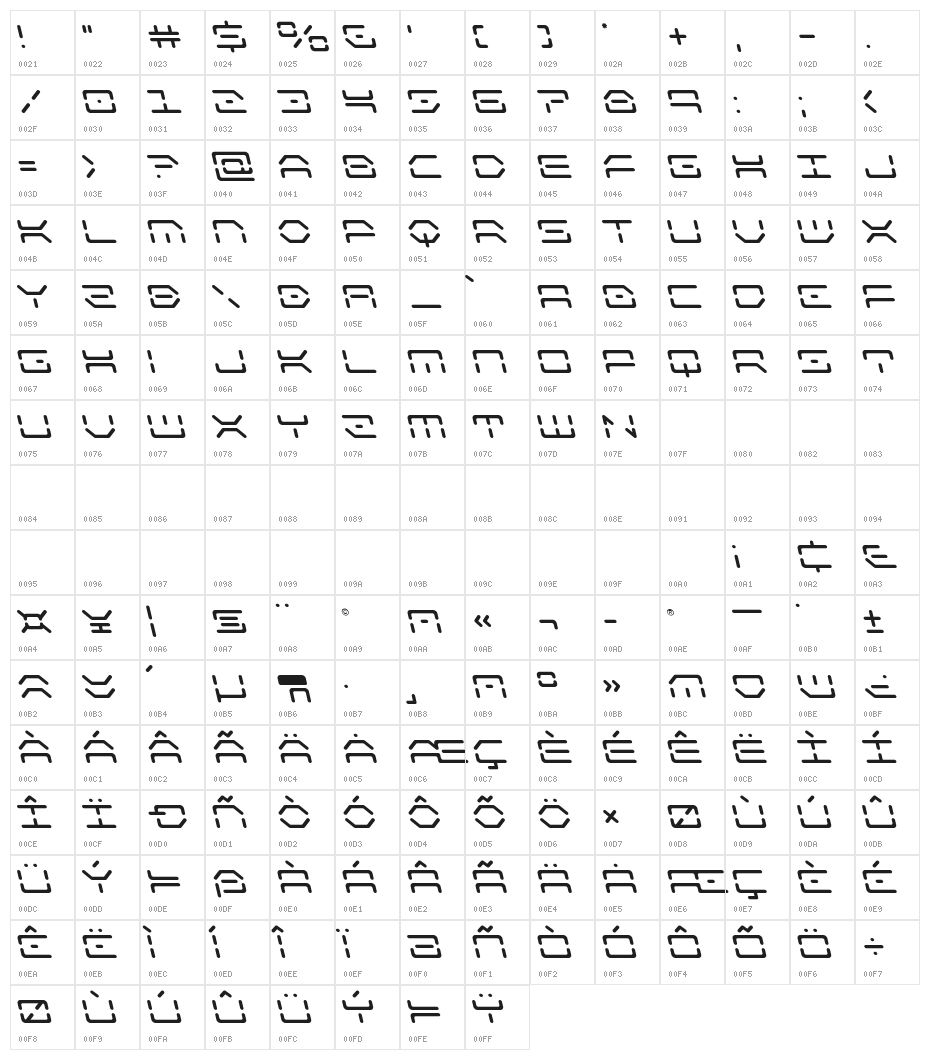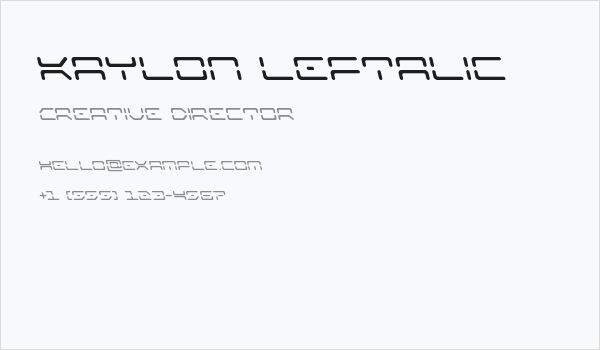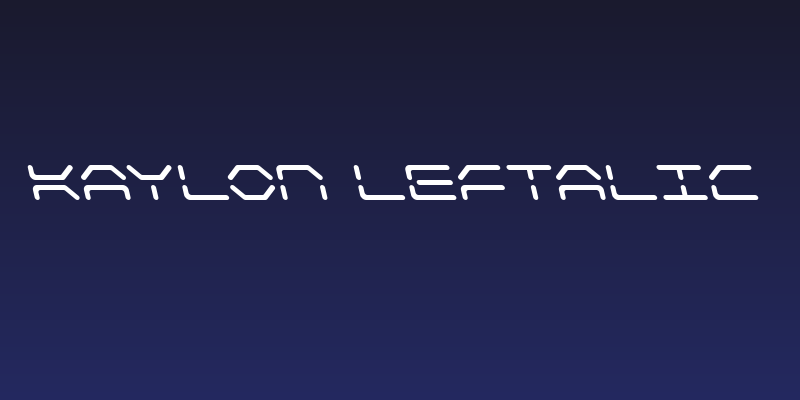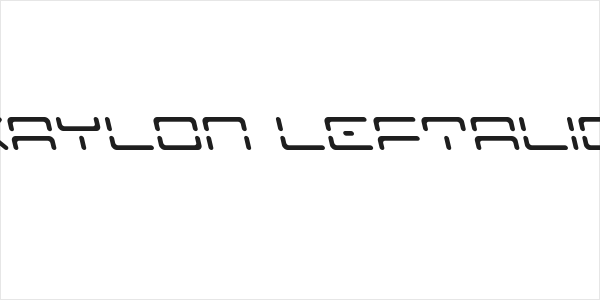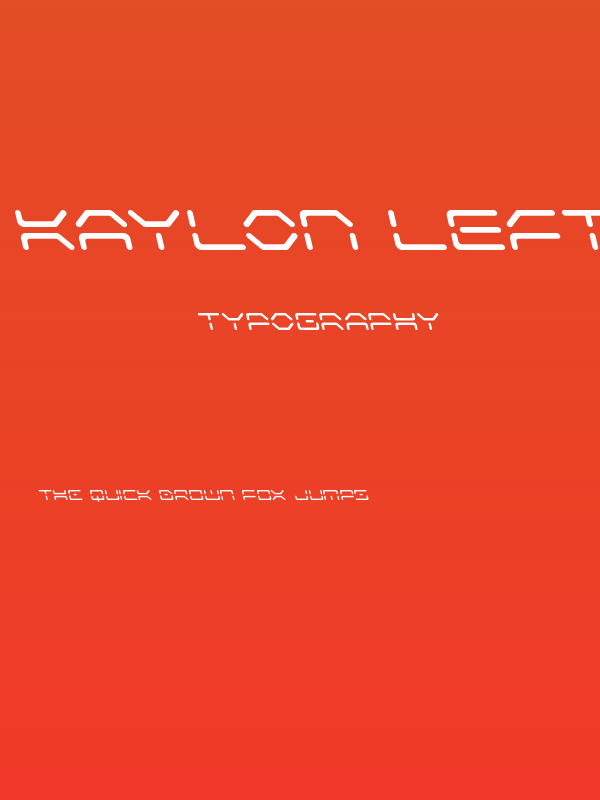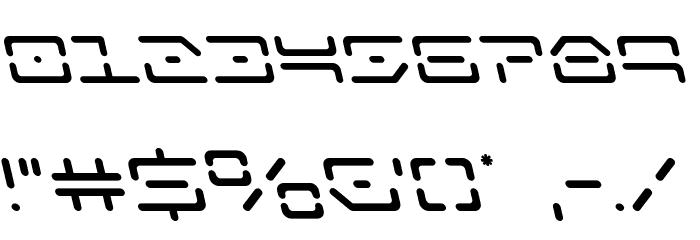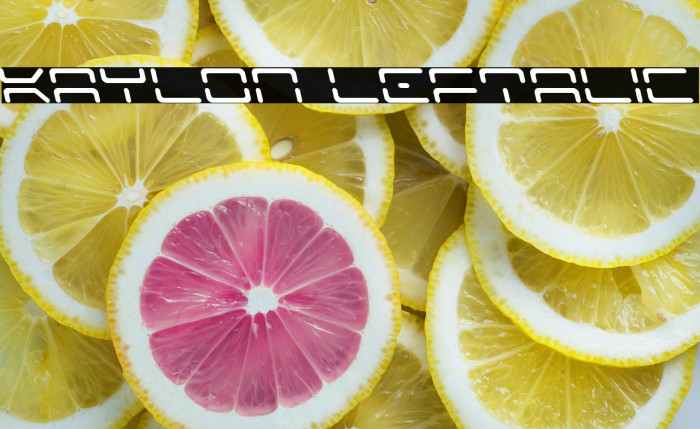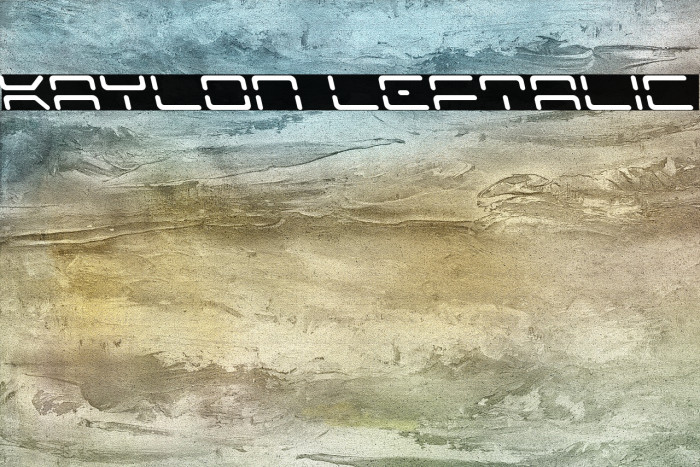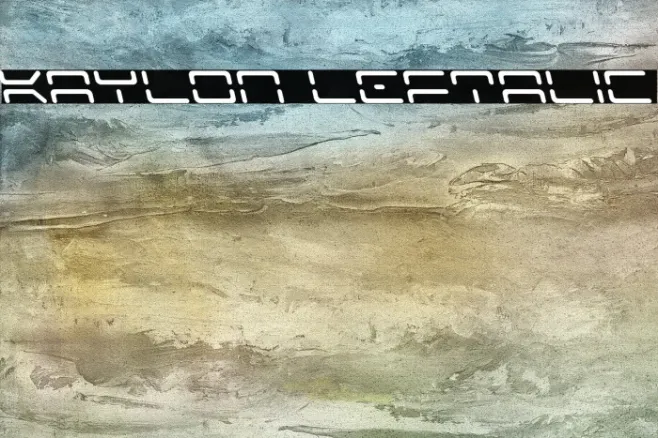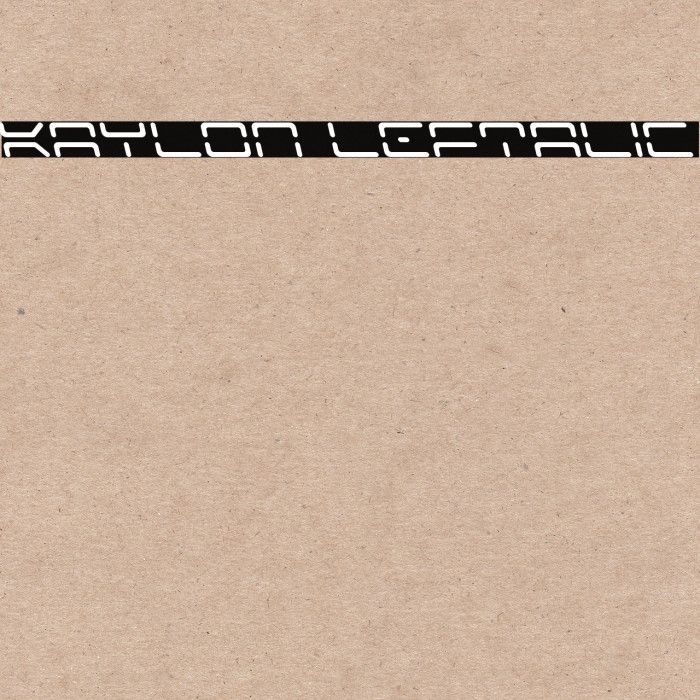
Kaylon Leftalic Font
Kaylon Leftalic Description
This font features a futuristic and geometric design, characterized by its angular and modular letterforms. Each character is constructed with a series of straight lines and sharp angles, giving it a distinctly modern and technological appearance. The font maintains a consistent stroke width throughout, contributing to its uniform and cohesive look. The spacing between characters is slightly wide, enhancing readability while preserving the font's unique style. This typeface is ideal for projects that require a contemporary and edgy aesthetic, such as technology branding, sci-fi themed designs, or modern digital interfaces.
| Proposed Projects | Ideal for technology branding, sci-fi themed designs, modern digital interfaces, and innovative product packaging. |